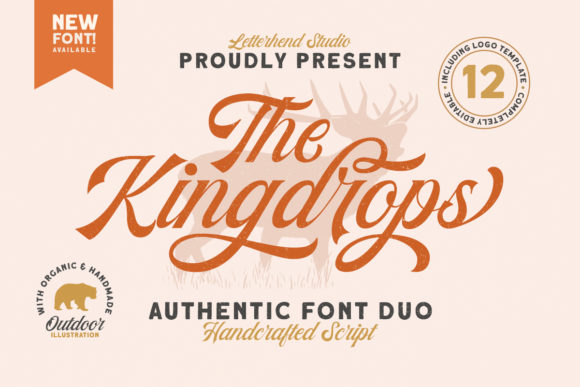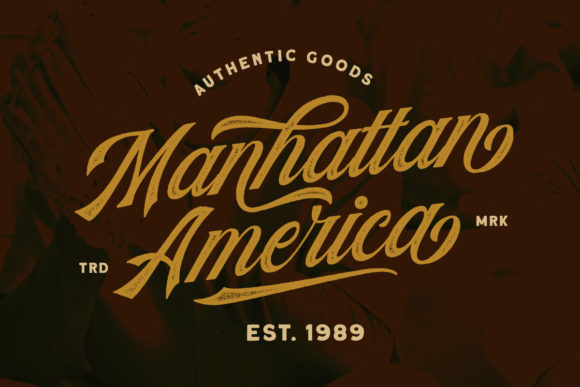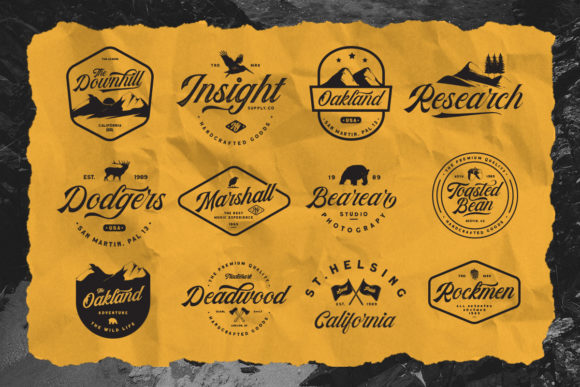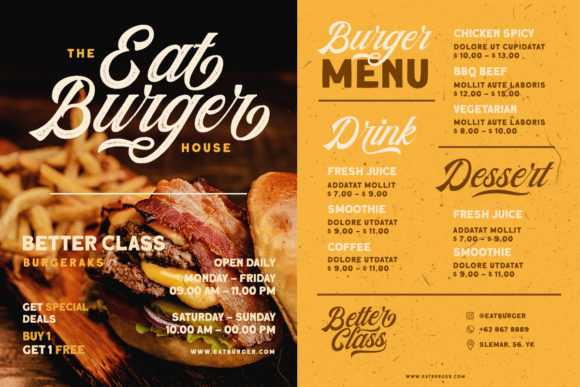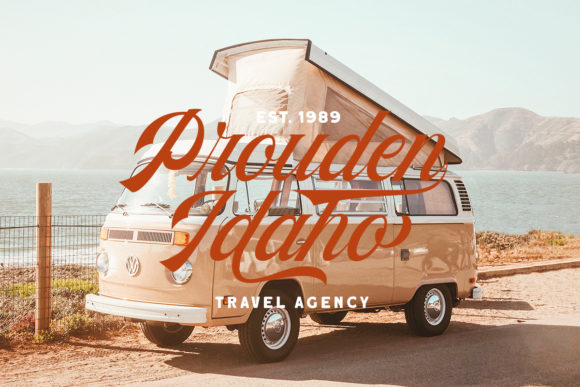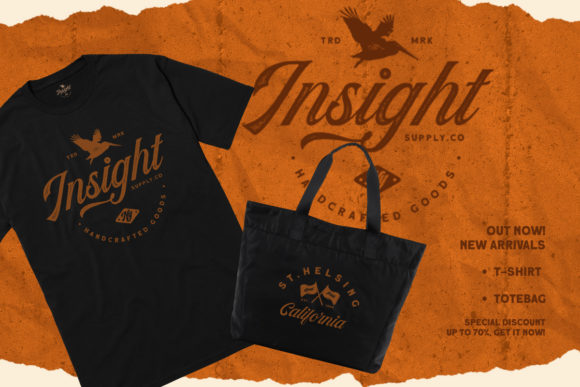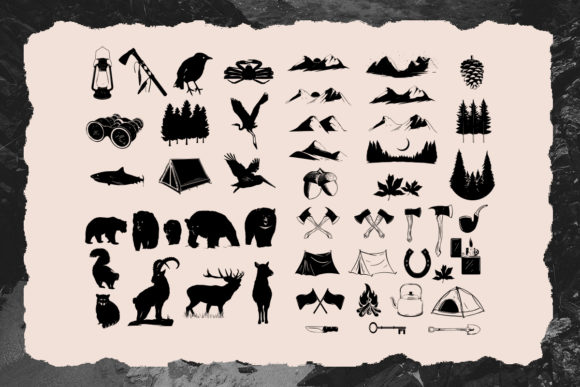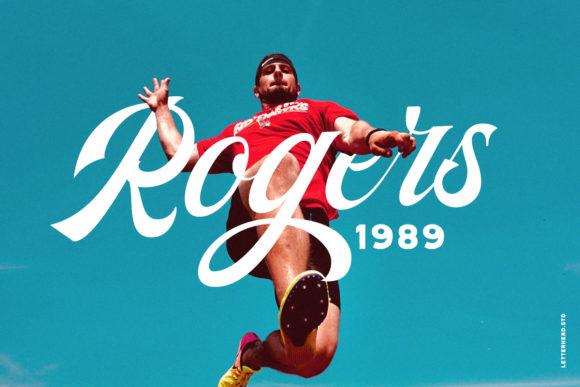
HomeScript FontsKingdrops Duo Font Script Fonts Kingdrops Duo Font FacebookXPinterestWhatsApp Kingdrops Duo Font Poster 2 Kingdrops Duo Font Poster 3 Kingdrops Duo Font Poster 4 Kingdrops Duo Font Poster 5 Kingdrops Duo Font Poster 6 Kingdrops Duo Font Poster 7 Kingdrops Duo Font Poster 8 About Kingdrops Duo Font Kingdrops is a dazzling font duo featuring 50 hand drawing objects, and 12 premade logo templates! DOWNLOAD ON CREATIVE FABRICAThis font is sold and delivered by Creative Fabrica. Font Canyon may earn a commission if you buy through this link. People also explored Briasantika Font Platinum Beat BTN Funny Momy Average Joe Museum Font Hello December Font Delightful Font Guritno Font Better Dreams Font 314 0 TagsKingdrops Duo Font Previous articleAndrila FontNext articleHiven Font LEAVE A REPLY Cancel reply Comment: Please enter your comment! Name:* Please enter your name here Email:* You have entered an incorrect email address! Please enter your email address here Website: Save my name, email, and website in this browser for the next time I comment. Personal Use Free Mellow Personal Use Free Read more about this font Euphorigenic Personal Use Free Read more about this font Satori Personal Use Free Read more about this font Harmony Personal Use Free Read more about this font BLOG Best Fonts for T-Shirt Design – Top 2025 Picks In 2025, t-shirt design has become more than just fashion—it's a form of self-expression. Whether you're... Fonts That Capture the Spirit of New York City To increase your work productivity, choose the most readable fonts. How to Cut Any Font on Cricut: Convert a Font to SVG (Free)